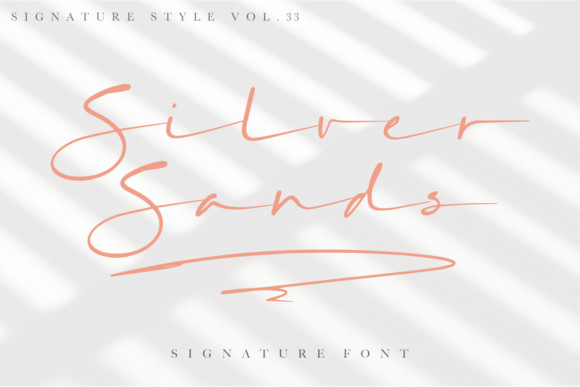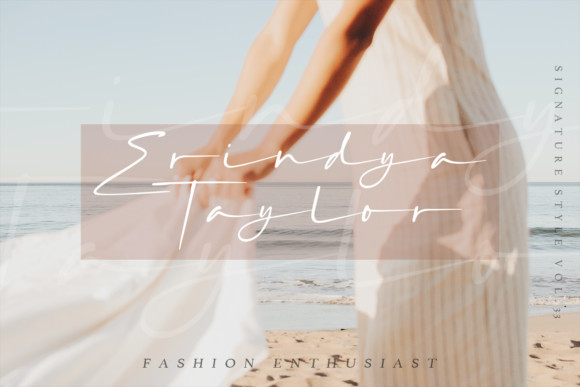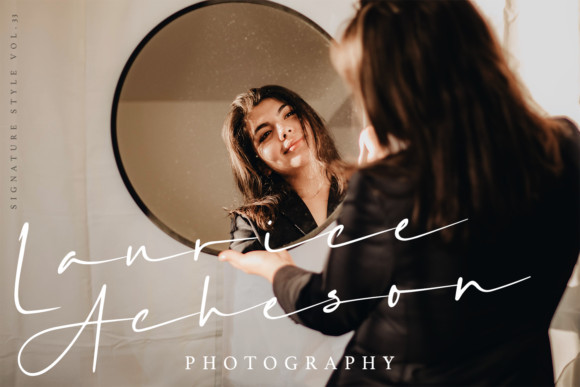
Silver Sands Font
Silver Sands is a relaxed and incredibly unique handwritten font. Fall in love with its incredibly versatile style and use it to create gorgeous wedding invitations, beautiful stationary art, eye-catching social media posts, and much more!